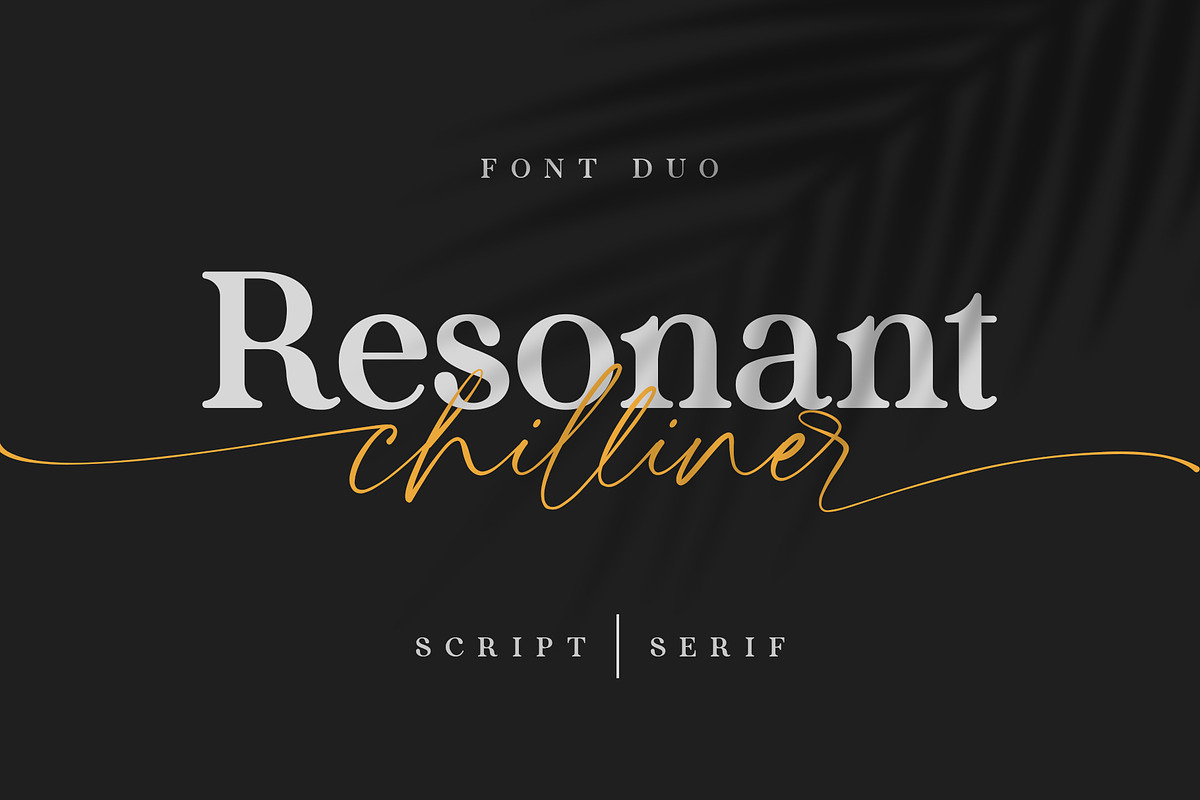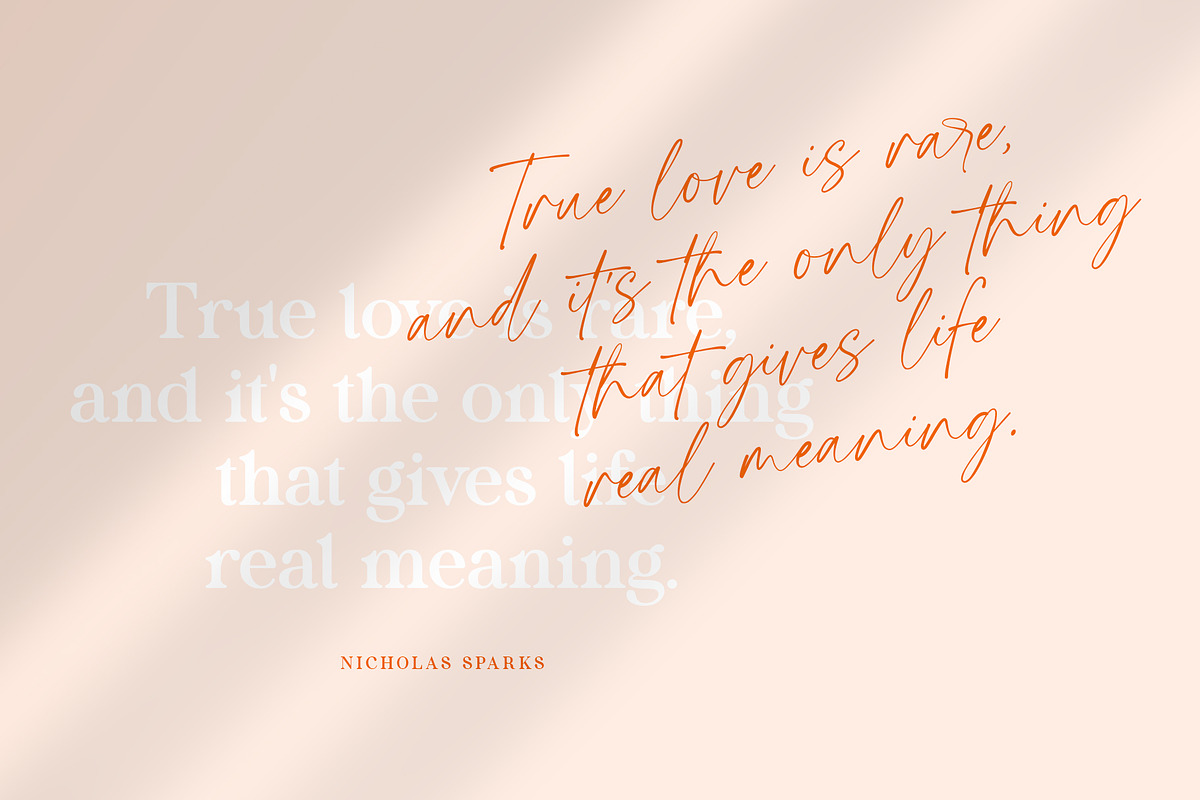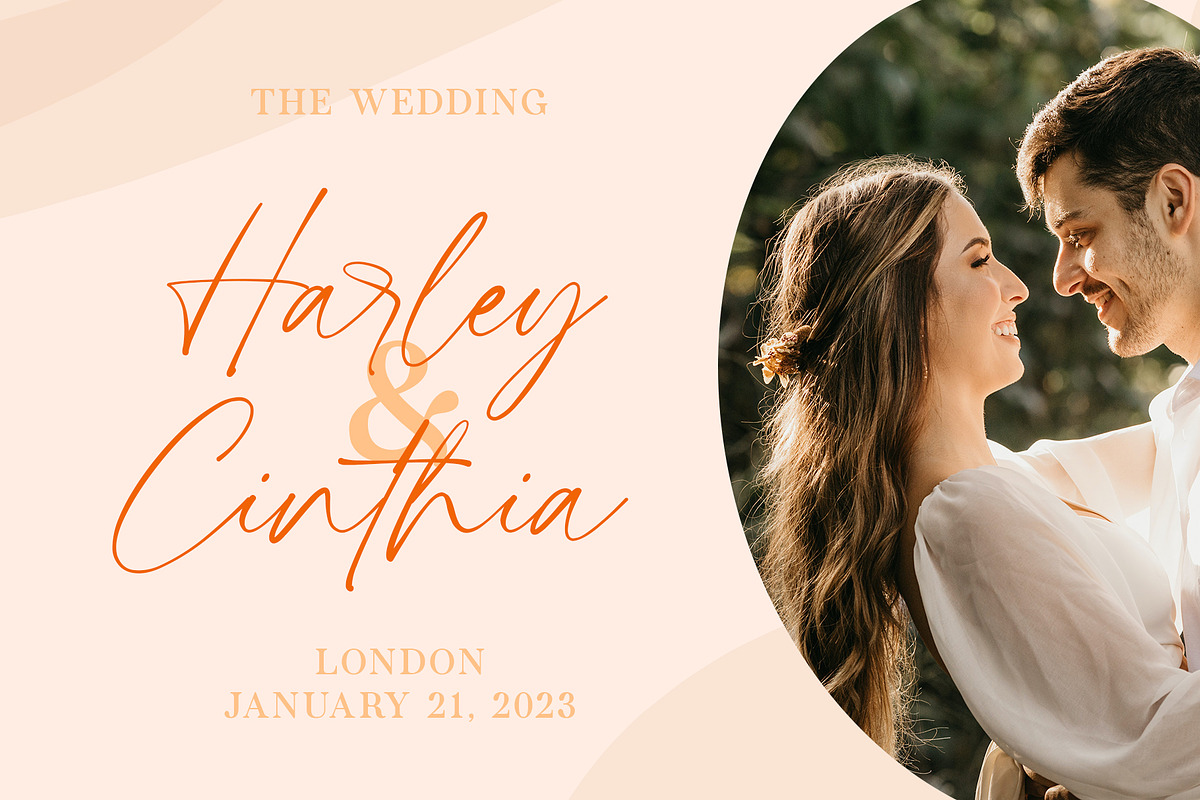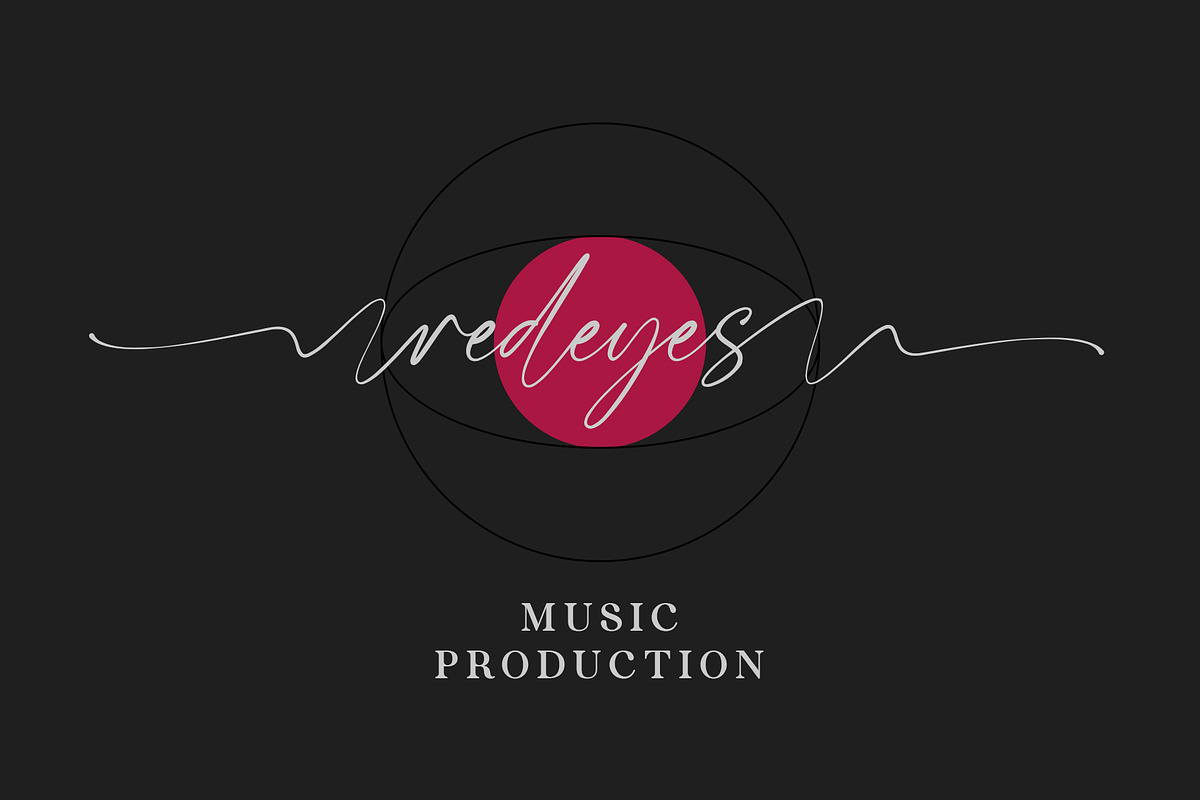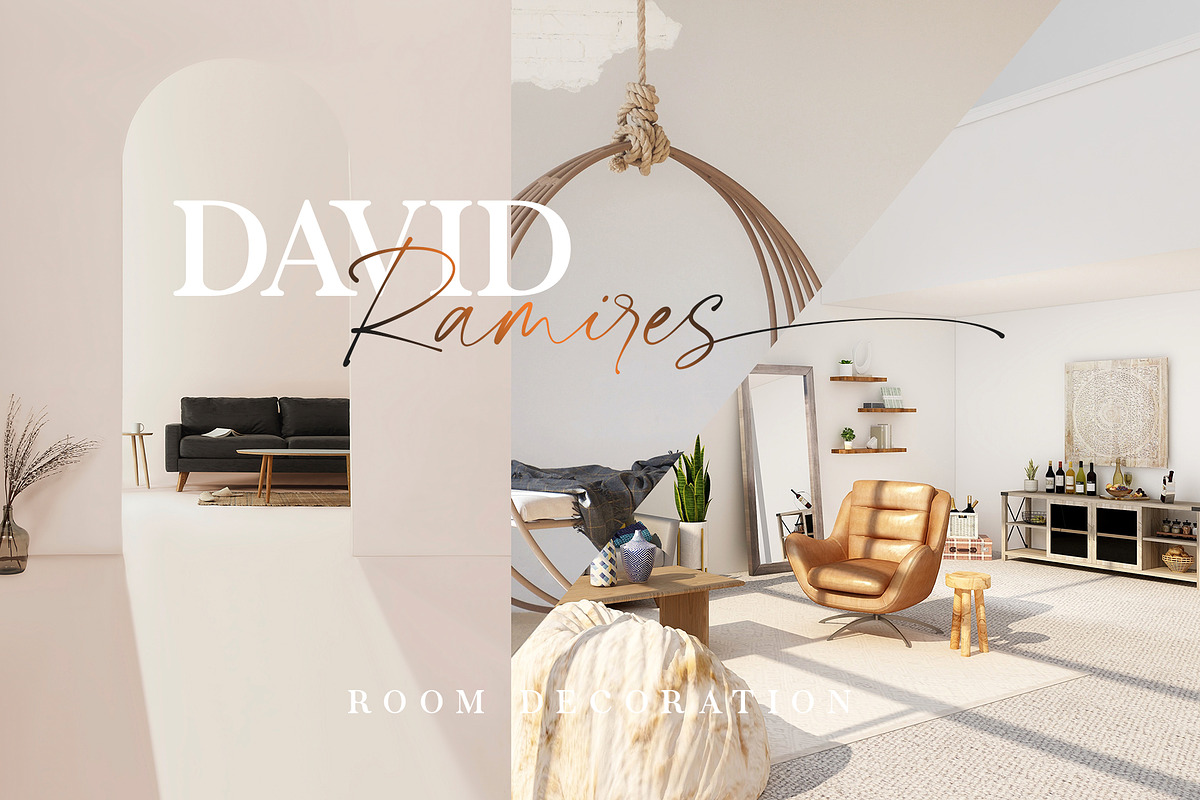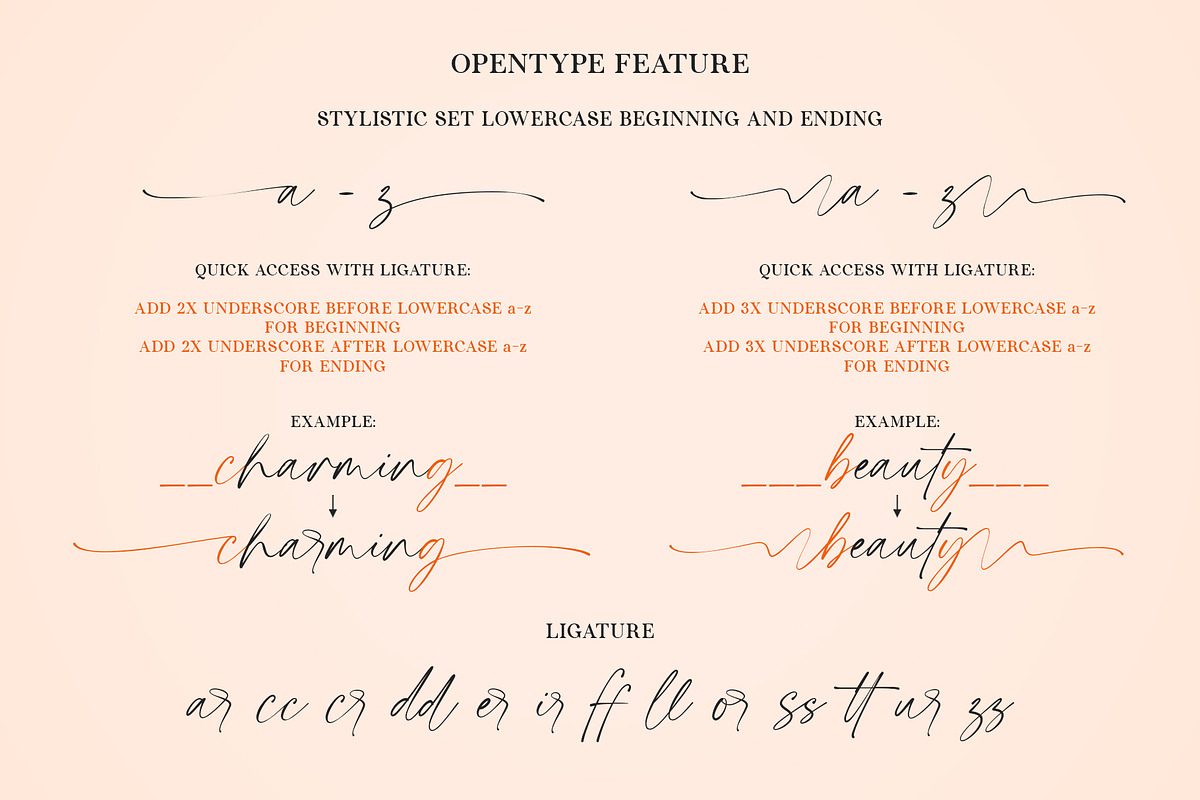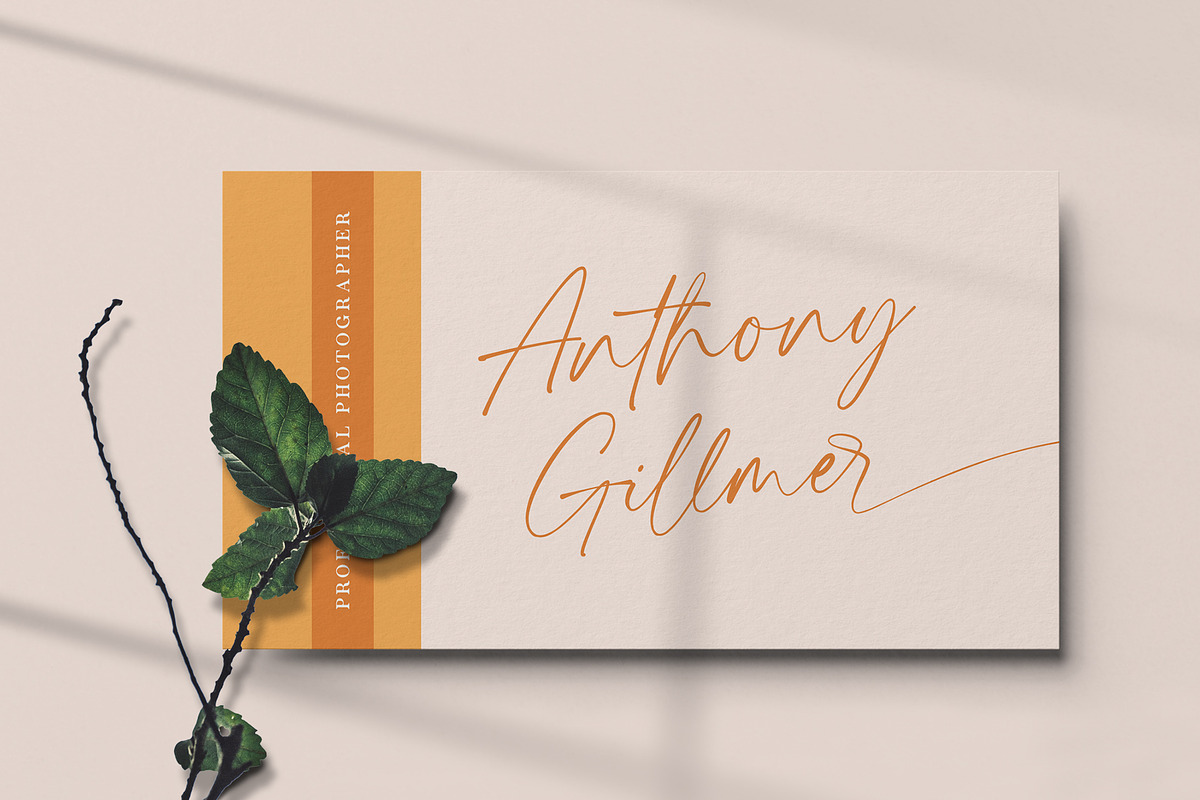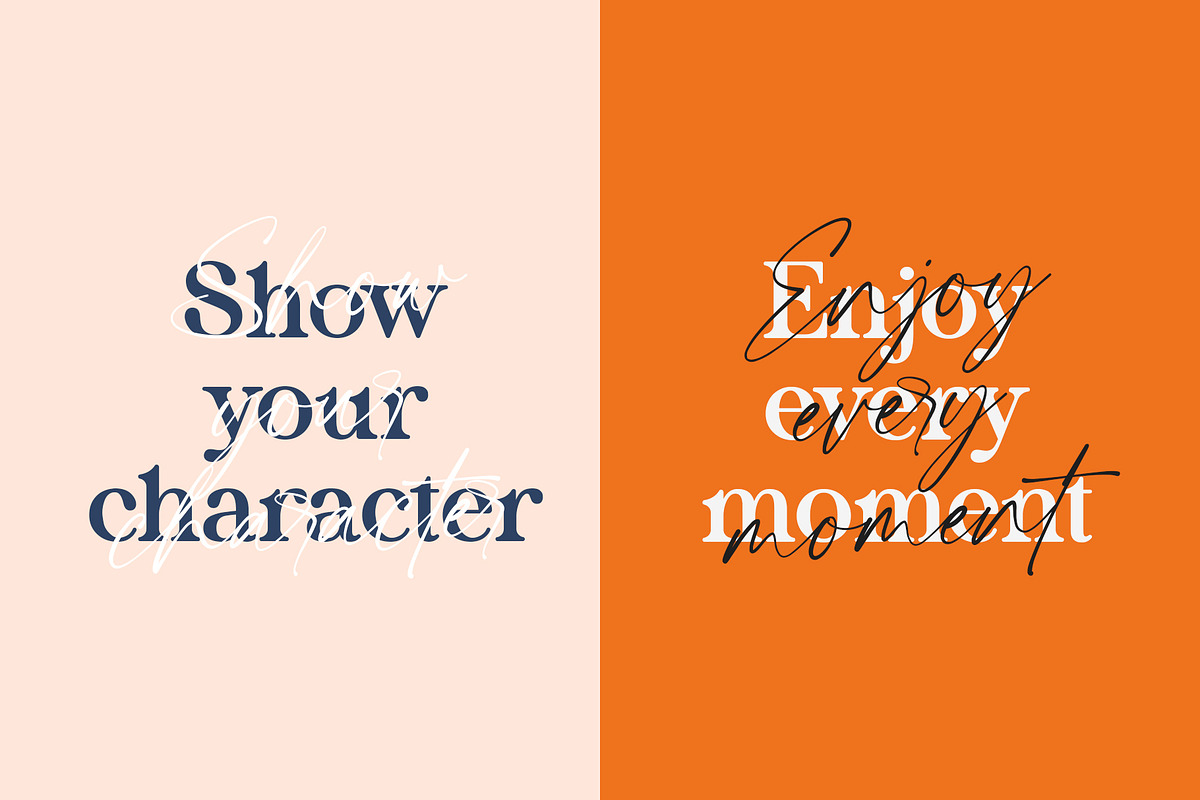
Resonant Chilliner | Font Duo
Resonant Chilliner is a spectacular duo font (Serif and Script). Perfect for product packaging, branding project, magazine, social media, and much more. Add this font to your favorite creative ideas and notice how it makes them come alive!
- Stylistic Set
Quick access
- Beginning(ss01): Add 2x underscore before lowercase a-z
- Ending(ss02): Add 2x underscore after lowercase a-z
- Beginning(ss03): Add 3x underscore before lowercase a-z
- Ending(ss04): Add 3x underscore after lowercase a-z